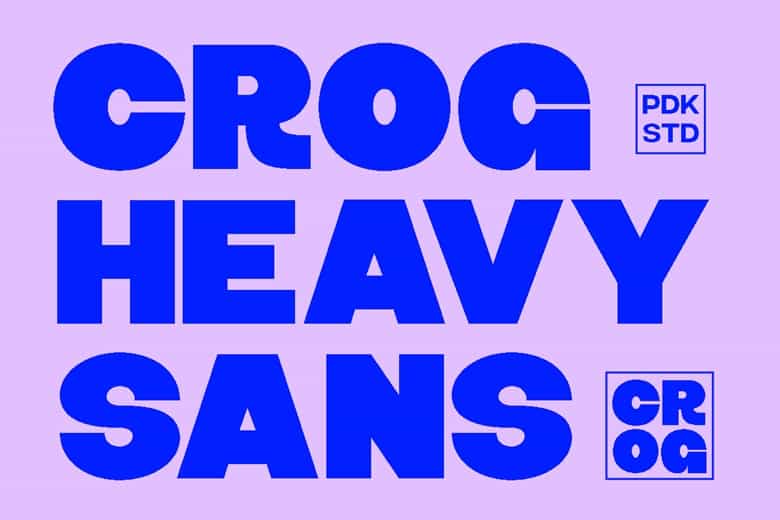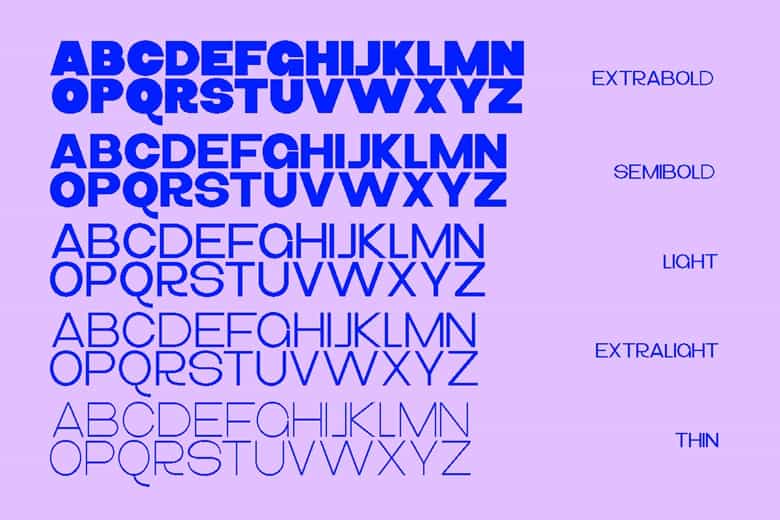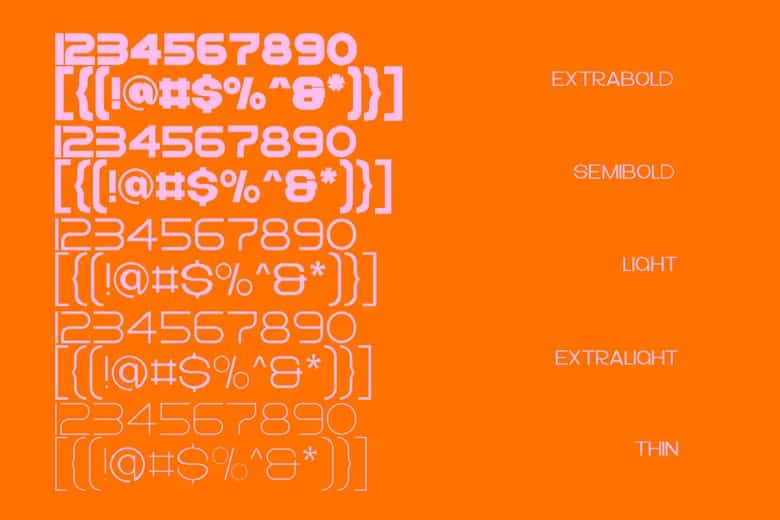
Discover Crog Font, part of the Sans Serif Display collection—a versatile and unique font perfect for adding a personal touch to your projects. Download it for free and enjoy crafting designs with style, from invitations to social media posts. This font is available exclusively for personal use, giving you the freedom to create without limits. Unlock your creativity with Crog Font today!
Crog is a bold sans font that has a total of 9 styles of font families (Thin, Extra Light, Light, Regular, Medium, Semi Bold, Bold, Extra Bold, and Black). Crog is a big, chunky, fun, noisy, and very obviously cheerful font. Crog is fun, and confident without being aggressive thanks to the soft corner it has. Due to its big size it can be used for image-fill effect but still remains readable.